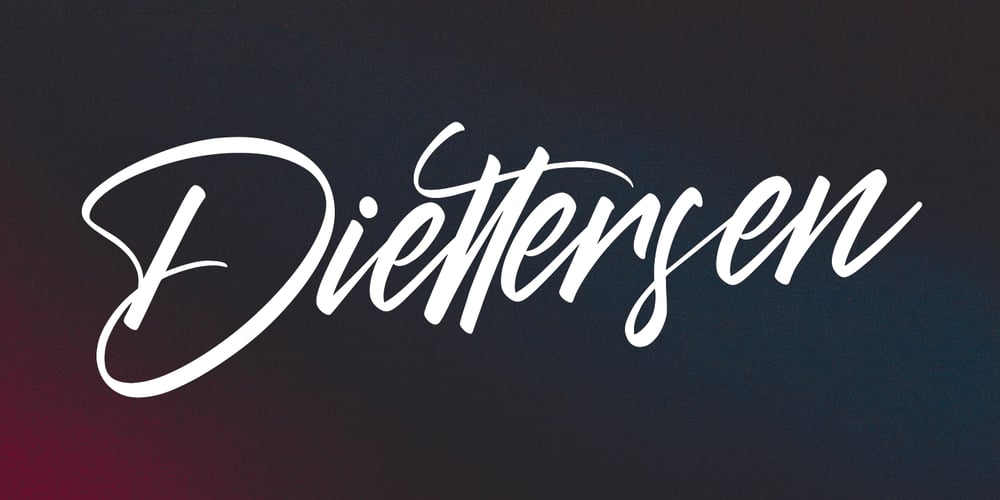
Diettersen Font Family was designed by Gilang Maulana and published by Maulana Creative. Diettersen contains 1 styles and family package options. Give your designs an authentic brush handcrafted feel. Diettersen is perfectly suited to signature, stationery, logo, typography quotes, magazine or book cover, website header, flyer, clothing, branding, packaging design and more.Thanks for use this font.MaulanaCreative